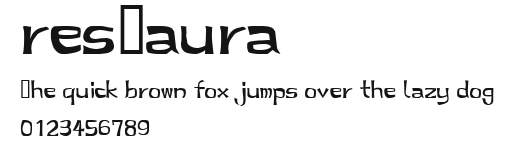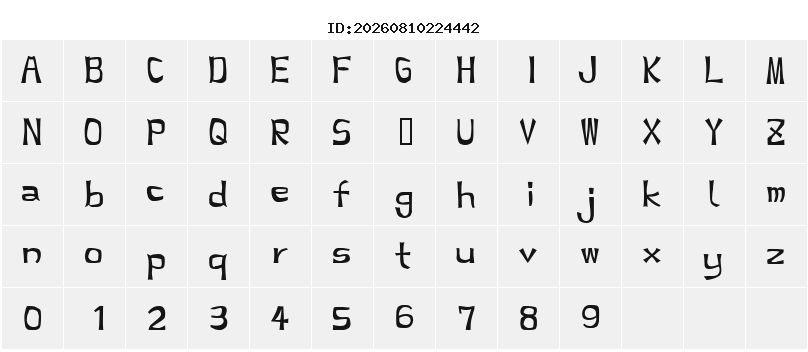
res￿aura Preview
About res￿aura.ttf
res￿aura.ttf is a modern, elegant sans-serif font designed for ultimate readability and visual harmony. Perfect for branding, headlines, web design, and print materials.